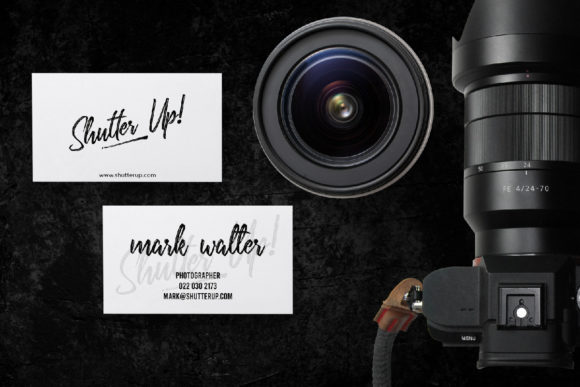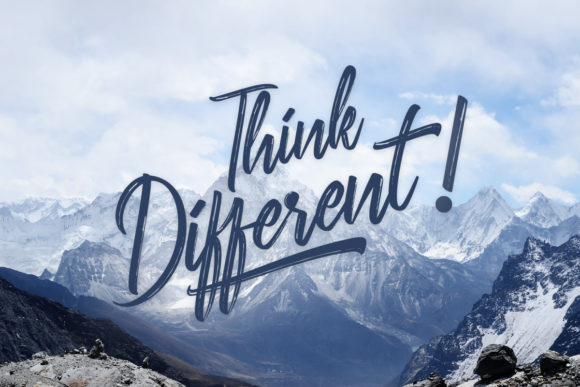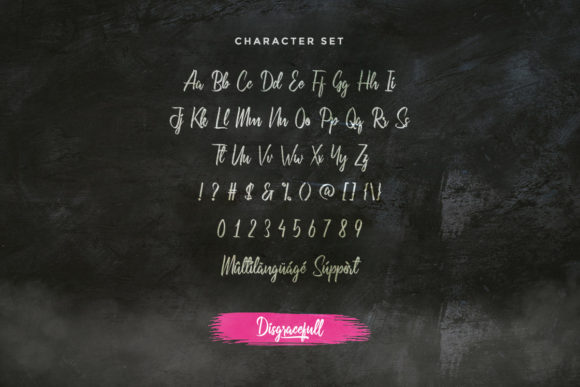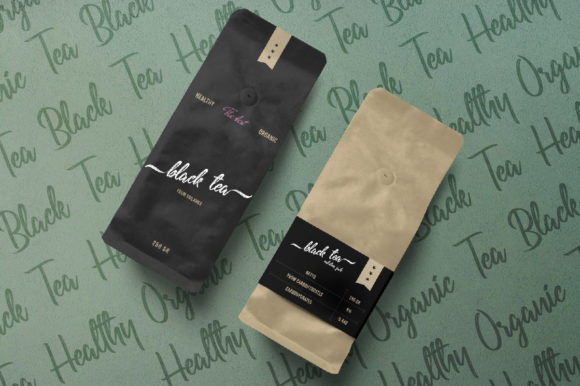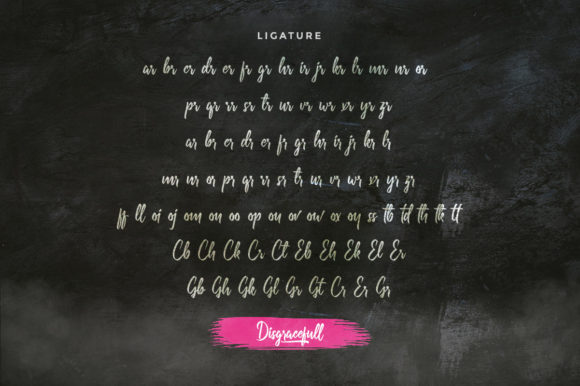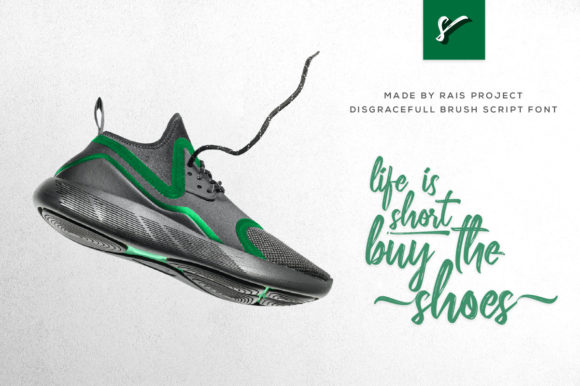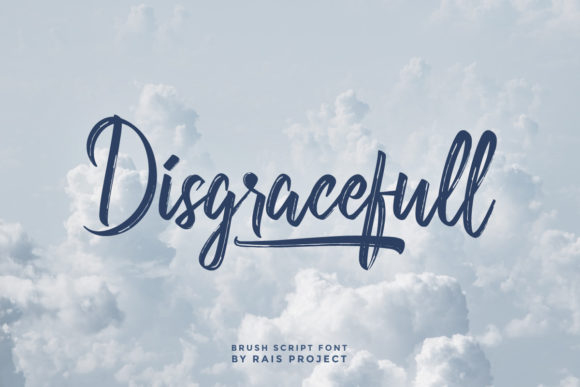
Introducing Disgracefull Font: Elevate Your Designs with Elegance and Sophistication
In the world of typography, fonts play a crucial role in conveying the tone and personality of a design. For designers and crafters looking to add a touch of elegance and modernity to their projects, the Disgracefull Font is an exceptional choice. This stunning cursive and fashionable brushed script font is designed to make your designs stand out, whether you’re working on logos, branding, invitations, stationery, wedding designs, social media posts, or any other creative project.
What Makes Disgracefull Font Special?
Disgracefull Font boasts a classy, elegant, and modern look that is sure to captivate your audience. Its unique cursive and brushed script style gives it a distinctive charm that can elevate any design. Here are some key features that make Disgracefull Font a must-have for designers and crafters:
• Cursive and Fashionable Brushed Script: The font’s cursive and brushed script style gives it a sophisticated and trendy look that’s perfect for designs that require a touch of elegance.
• Classy, Elegant, and Modern: Disgracefull Font’s classy and elegant design makes it suitable for a wide range of projects, from luxurious branding to intimate wedding designs.
Endless Design Possibilities with Disgracefull Font
The versatility of Disgracefull Font is one of its most appealing aspects. Its elegant and modern design makes it suitable for a wide range of applications, including:
• Logos and Branding: Create a lasting impression with a logo that exudes sophistication and elegance. Disgracefull Font is perfect for luxury brands, boutiques, and high-end services.
• Invitations and Stationery: Add a touch of class to your invitations, greeting cards, and stationery with this beautiful font.
• Wedding Designs: Make your wedding designs truly special with Disgracefull Font. It’s perfect for wedding invitations, save-the-date cards, and ceremony programs.
• Social Media Posts: Elevate your social media presence with stylish and engaging posts that showcase your brand’s personality.
Why Choose Disgracefull Font?
With so many fonts available, why should you choose Disgracefull Font for your next project? Here are a few compelling reasons:
• Unique and Distinctive: Disgracefull Font’s unique cursive and brushed script style sets it apart from other fonts, ensuring your designs stand out.
• High-Quality Design: The font is designed with high-quality and precision, ensuring it looks great in any size or application.
Disgracefull Font is an exceptional addition to any designer’s or crafter’s toolkit. Its elegant and modern design, combined with its versatility and ease of use, makes it perfect for a wide range of projects. Whether you’re looking to create stunning logos, beautiful wedding designs, or engaging social media posts, Disgracefull Font is sure to elevate your designs to the next level. So why wait? Get creative with Disgracefull Font today and experience the power of elegant typography!